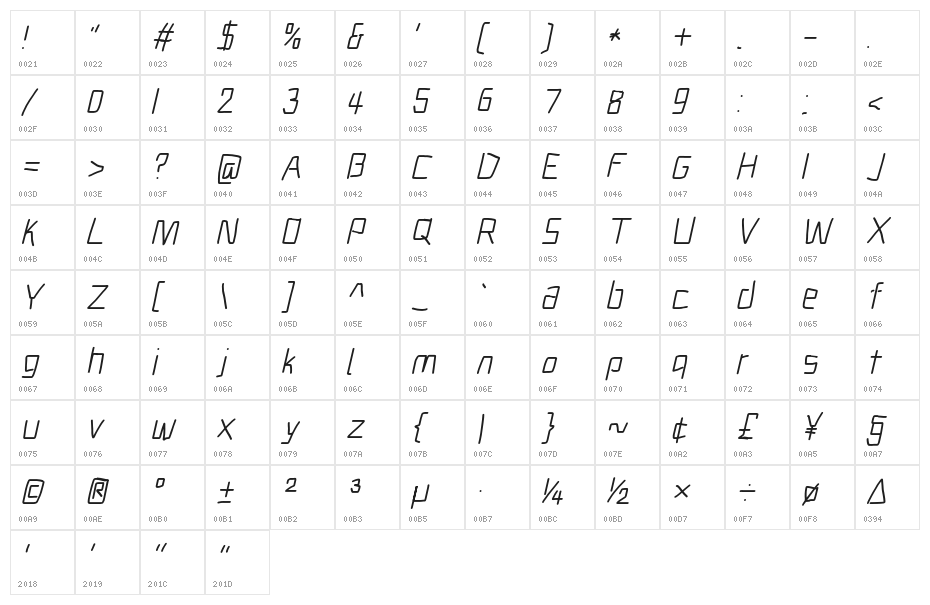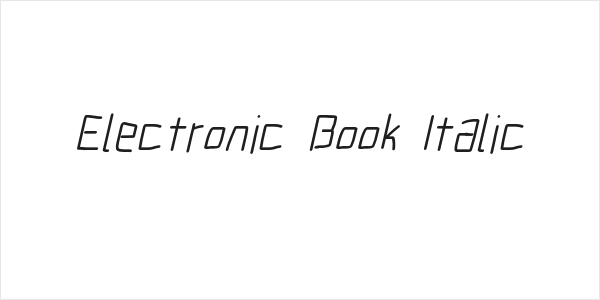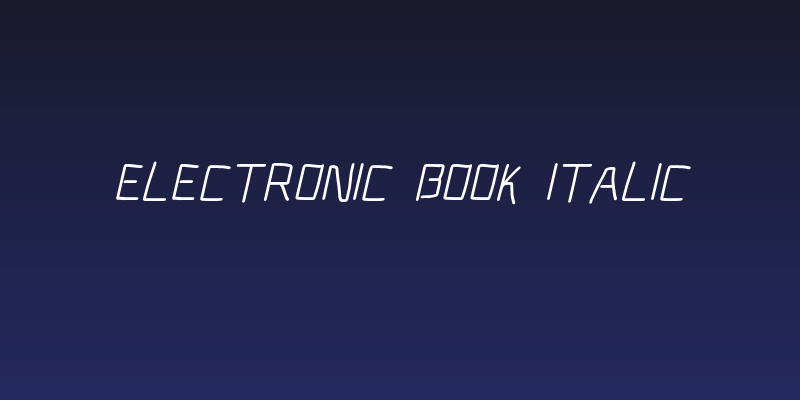
Electronic Book Italic Font
Electronic Book Italic Description
This font features a sleek, modern design with a distinct italic slant, giving it a dynamic and forward-moving appearance. The characters are slightly condensed, with a uniform stroke width that maintains a clean and consistent look. The uppercase letters are tall and narrow, while the lowercase letters have a more rounded and approachable feel. The numerals are well-proportioned, matching the overall style of the alphabet. Special characters are included, maintaining the same stylistic elements, making this font versatile for various applications.
| Use Case | Headlines, Logos, Digital interfaces |
| Proposed Projects | Ideal for tech-related branding, digital interfaces, modern advertising, and futuristic design projects. |